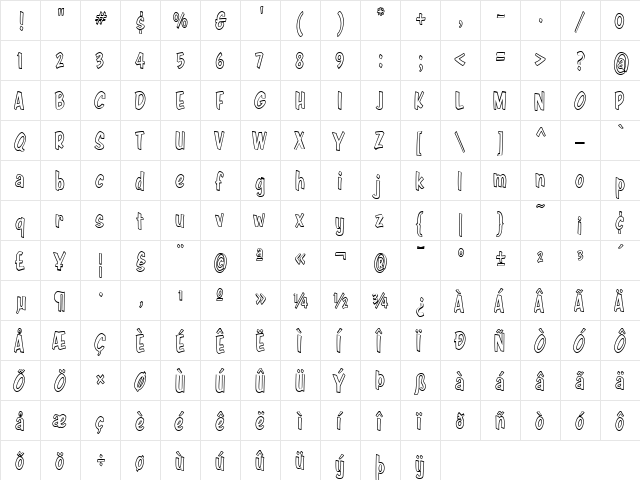
Java Jive Outline Condensed Regular
Design Context for Java Jive Outline Condensed Typeface
Java Jive Outline Condensed is built around its visual character rather than neutral utility — its distinctive forms are designed to make an impression at display sizes.